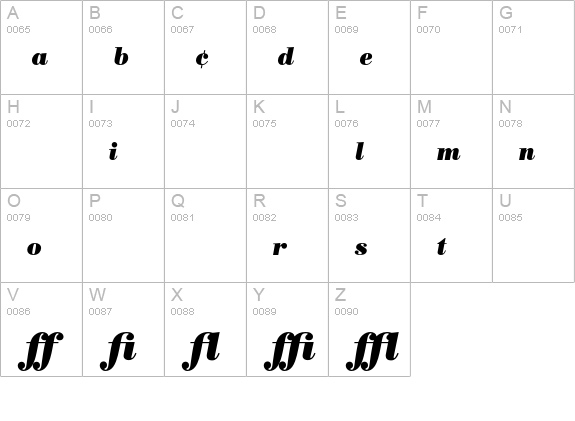
Bodoni BE Bold Italic Expert Font Details
Bodoni BE Bold Italic Expert is a strong, high-contrast, italic variant in the Bodoni typeface family \xE2\x80\x94 well suited to headlines, attention-grabbing titles, and strong calls-to-action.
Bodoni BE Bold Italic Expert font is a striking and elegant typeface that exudes sophistication and modernity. Its bold and italicized design adds a touch of drama and flair to any project, making it perfect for headlines, titles, and branding materials. The sharp serifs and clean lines of Bodoni BE Bold Italic Expert font give it a timeless and refined appeal that is sure to make a statement. The best part is that Bodoni BE Bold Italic Expert font is available for free download at FontsMarket.com. Now you can elevate your designs with this stunning typeface without breaking the bank. Whether you are working on a print project, website design, or any other creative endeavor, Bodoni BE Bold Italic Expert font is a versatile and eye-catching choice that will leave a lasting impression. Download it now and take your designs to the next level!